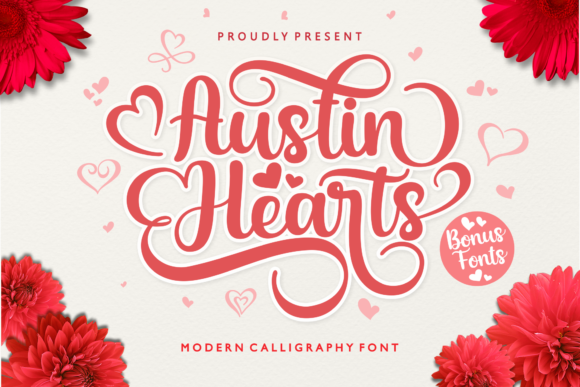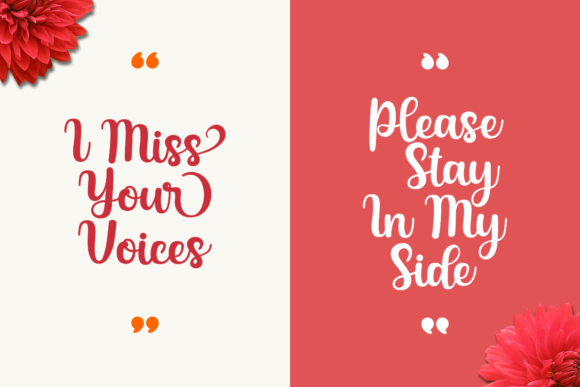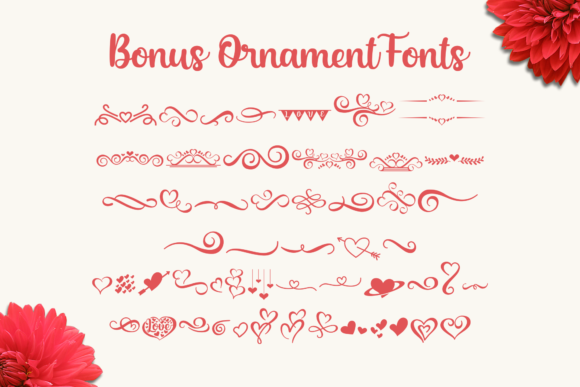
Austin Hearts Font
About the Austin Hearts Font
The Austin Hearts Font offers a perfect balance of form and function for your design needs. Austin Hearts is an incredibly stunning script with beautiful letters and extravagant swashes. Fall in love with its romantic charm!
Its romantic charm makes it ideal for wedding invitations, branding for luxury goods, or elegant packaging designs. However, the extravagant swashes may prove less legible in body text or UI applications. Avoid using it for lengthy paragraphs or situations requiring high readability.
Austin Hearts’ inherent elegance pairs well with clean sans-serif fonts like Lato or Montserrat for a balanced contrast. For a more vintage feel, consider pairing it with a serif like Playfair Display. Avoid pairing it with other script fonts, which could result in visual clutter.
The font exudes a sophisticated, romantic personality, best suited to projects requiring a touch of classic elegance and timeless appeal.
Austin Hearts Font Usage Examples
Austin Hearts Font Example